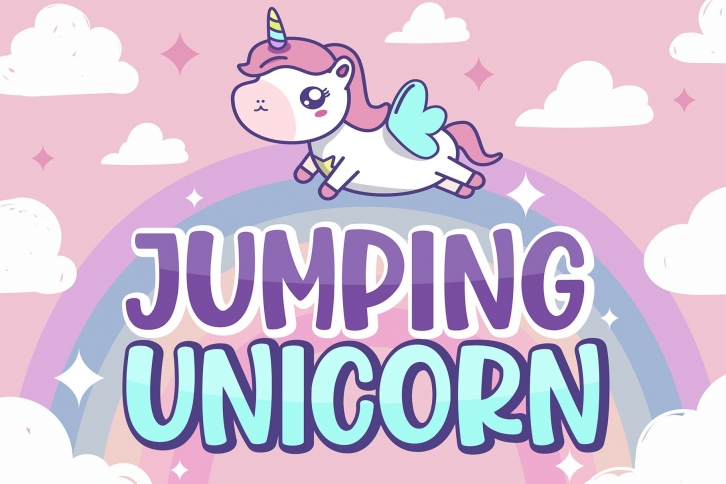
Jumping Unicorn is a beautiful font that was designed by Subectype. It's a great choice for designers and creatives who need such a font. It was released on July 3, 2020 and the file size is 11.40 MB. Jumping Unicorn may give a more youthful, expressive and casual look to your project. It is a very beautiful, refined, elegant, and high-quality font.